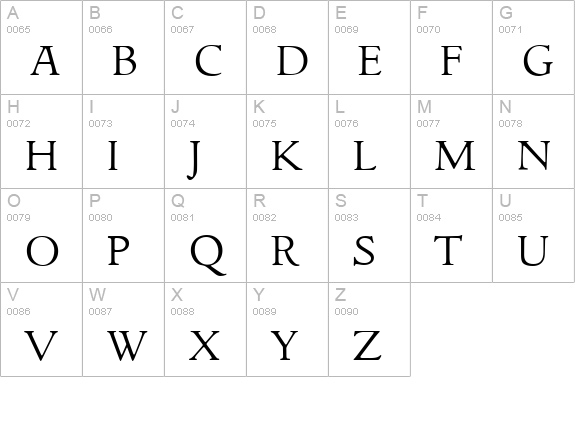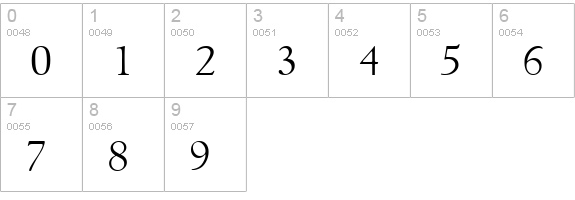
GouditaSerial-Light-Regular is a refined, elegant variant in the GouditaSerial typeface family \xE2\x80\x94 well suited to elegant body text, refined sub-headings, and luxury branding.
GouditaSerial-Light-Regular is a modern and elegant font that exudes sophistication and charm. With its sleek lines and clean design, this font is perfect for a wide range of creative projects, from branding to editorial design. The light weight of the font gives it a delicate and refined appearance, making it ideal for adding a touch of elegance to any project. The best part? GouditaSerial-Light-Regular is completely free to download! You can easily access this beautiful font at FontsMarket.com, where you can find a wide selection of high-quality fonts for all your design needs. Add GouditaSerial-Light-Regular to your font collection today and elevate your designs with its timeless appeal.